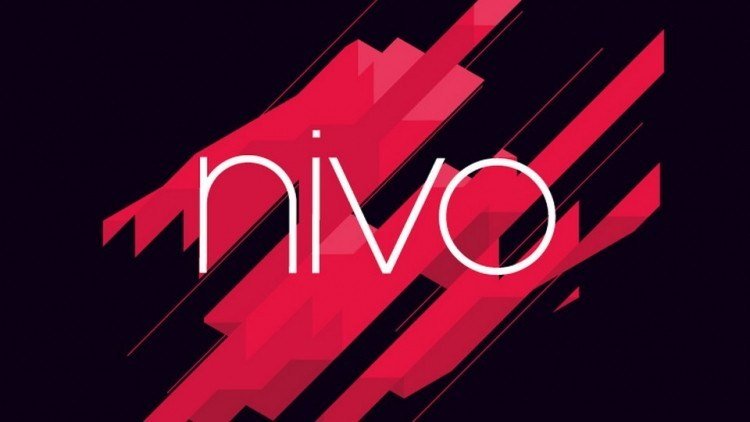
Nivo Sans Free Font
Nivo is a minimalist geometric typeface. It comes in Regular and Semibold weights, contains upper and lowercase letters, numbers, symbol, accents.
Nivo font family is suitable for logos, branding, short texts, posters and other graphic project.